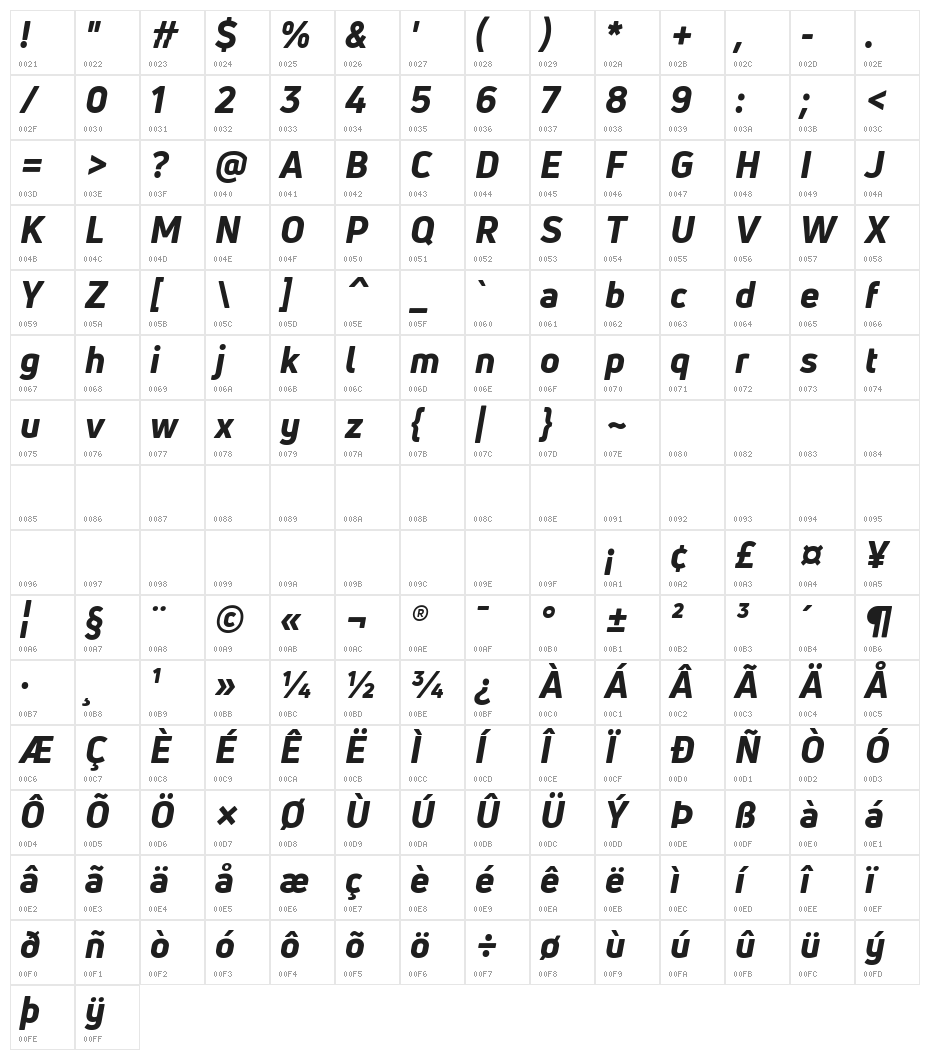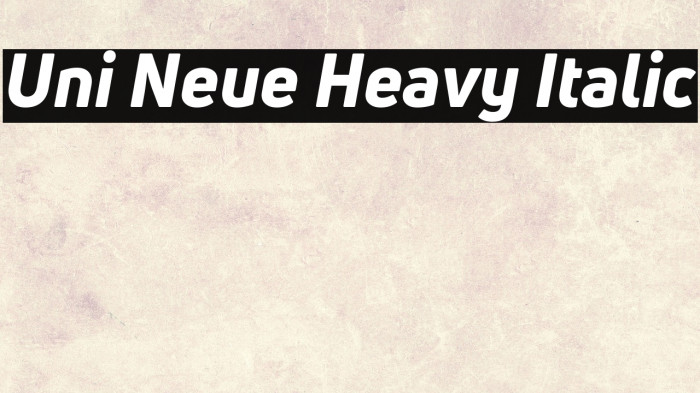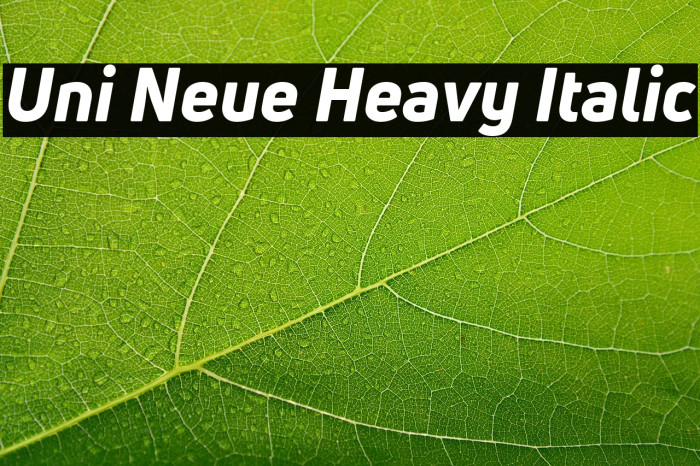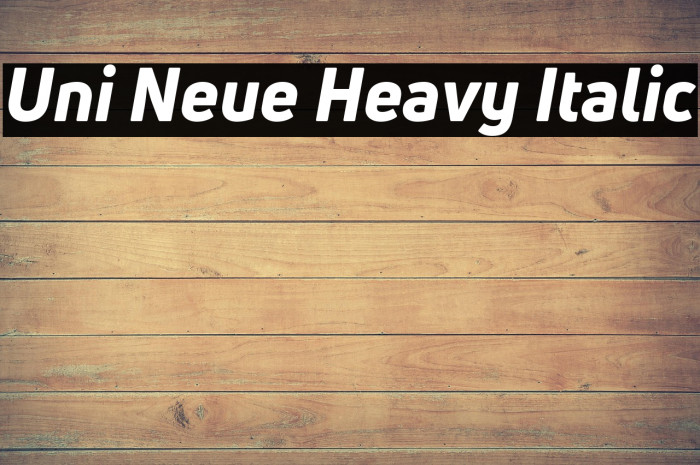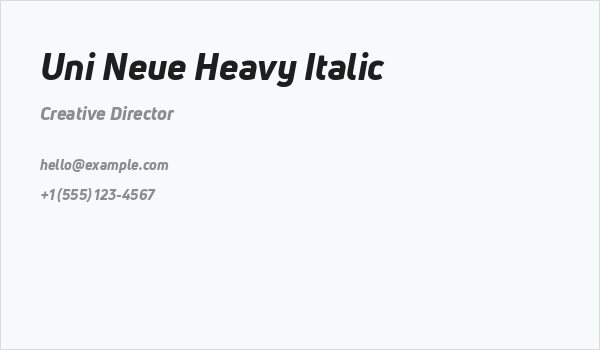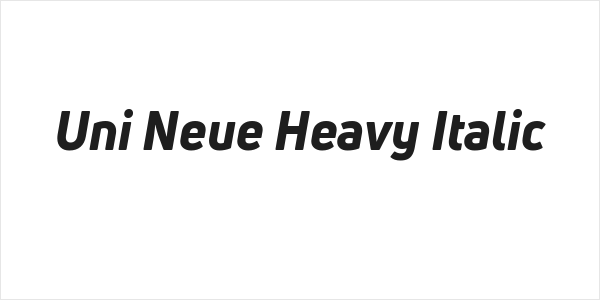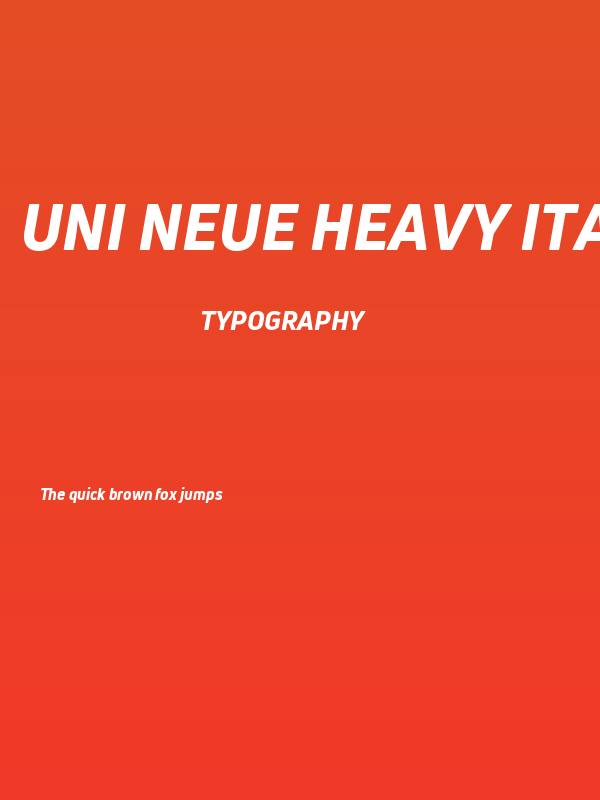
Uni Neue Heavy Italic Font
Uni Neue Heavy Italic Description
This font features a bold and dynamic style with a strong presence. The characters are italicized, giving a sense of motion and energy. The strokes are thick and consistent, contributing to a heavy appearance that commands attention. The design is clean and modern, with smooth curves and sharp angles that enhance readability. The uppercase and lowercase letters maintain a uniform width, creating a cohesive look. The numerals and special characters are designed to match the overall aesthetic, ensuring versatility across various applications.
| Proposed Projects | Ideal for branding, advertising, headlines, and any project requiring a strong visual impact. |